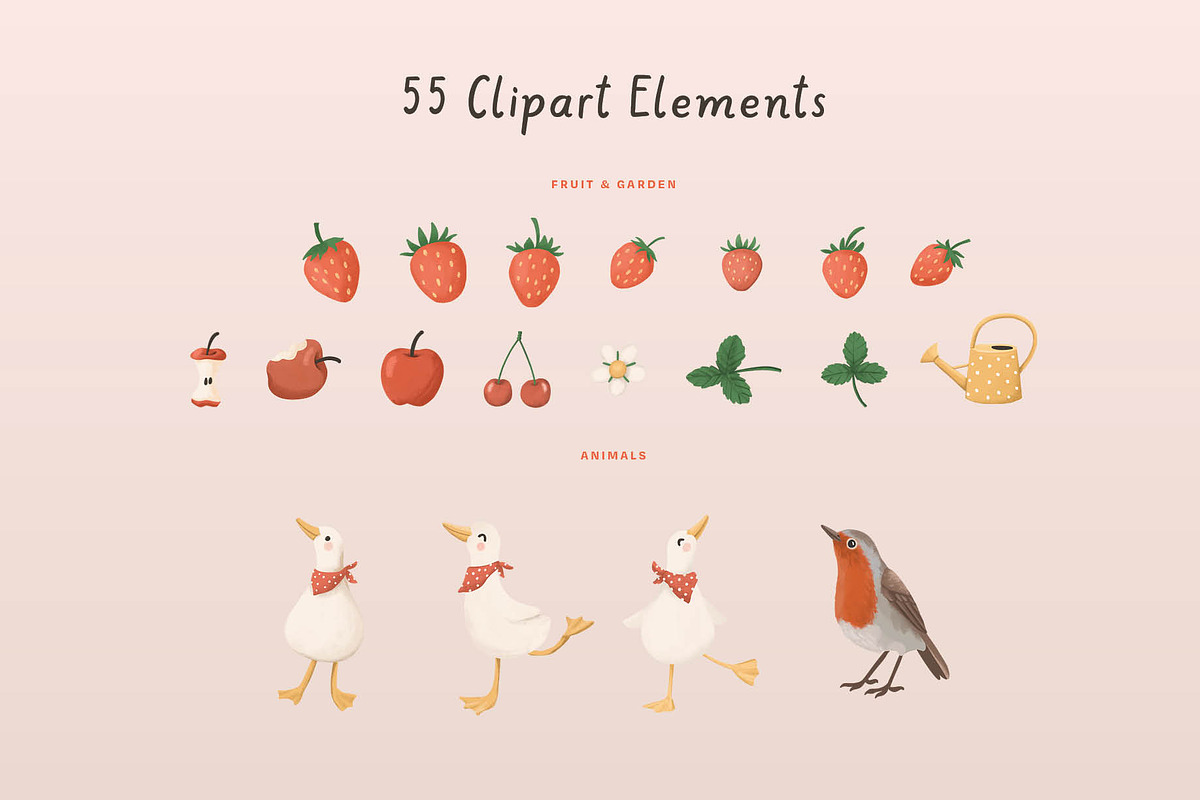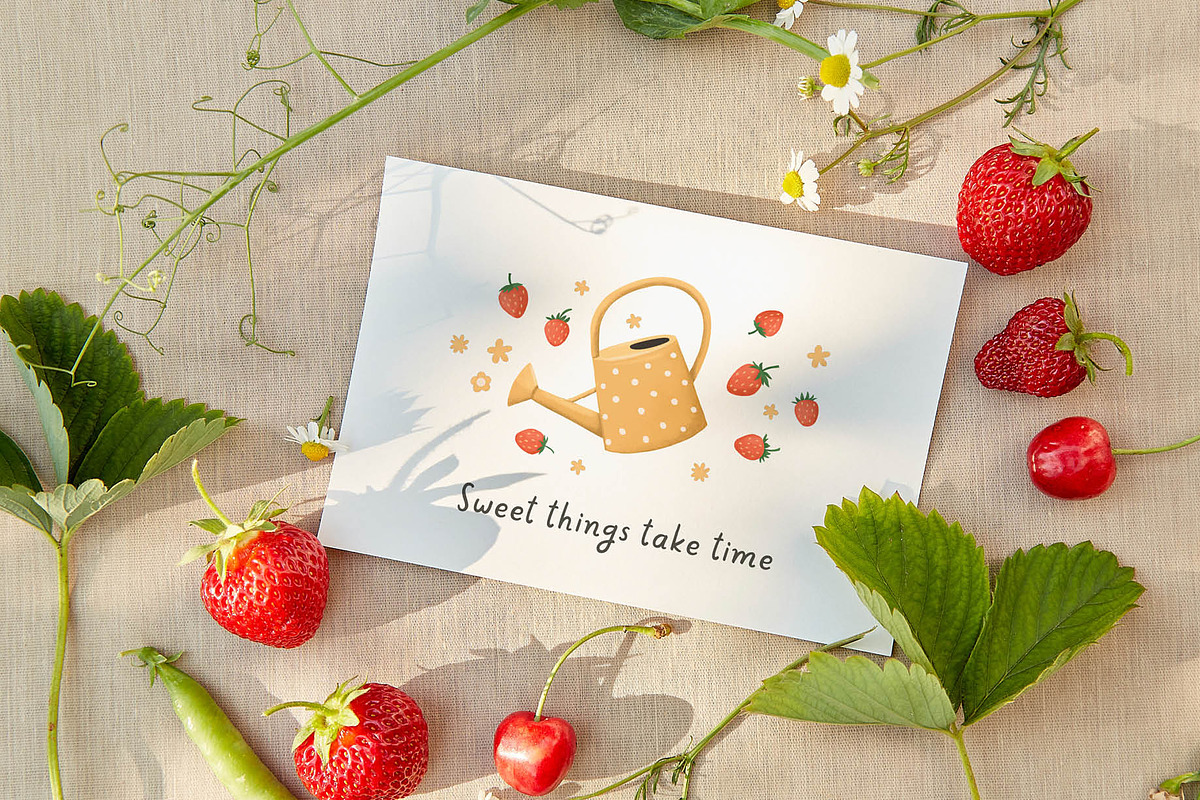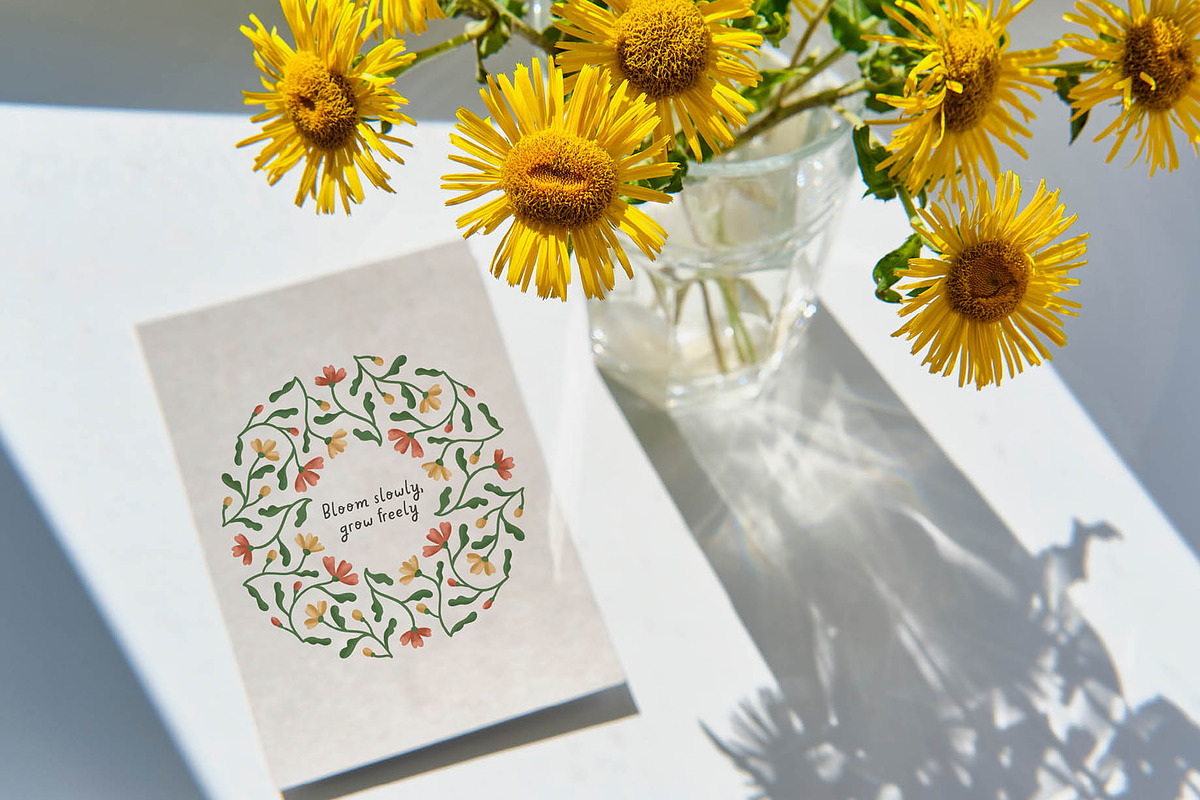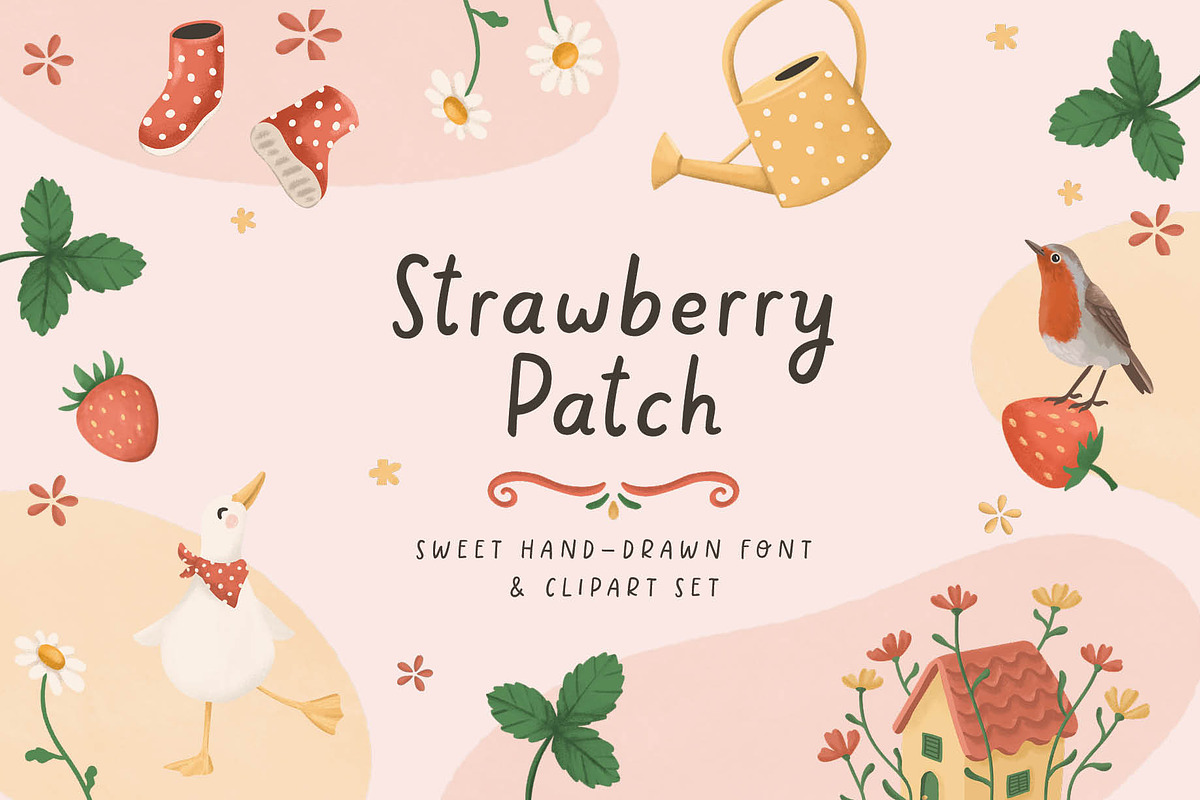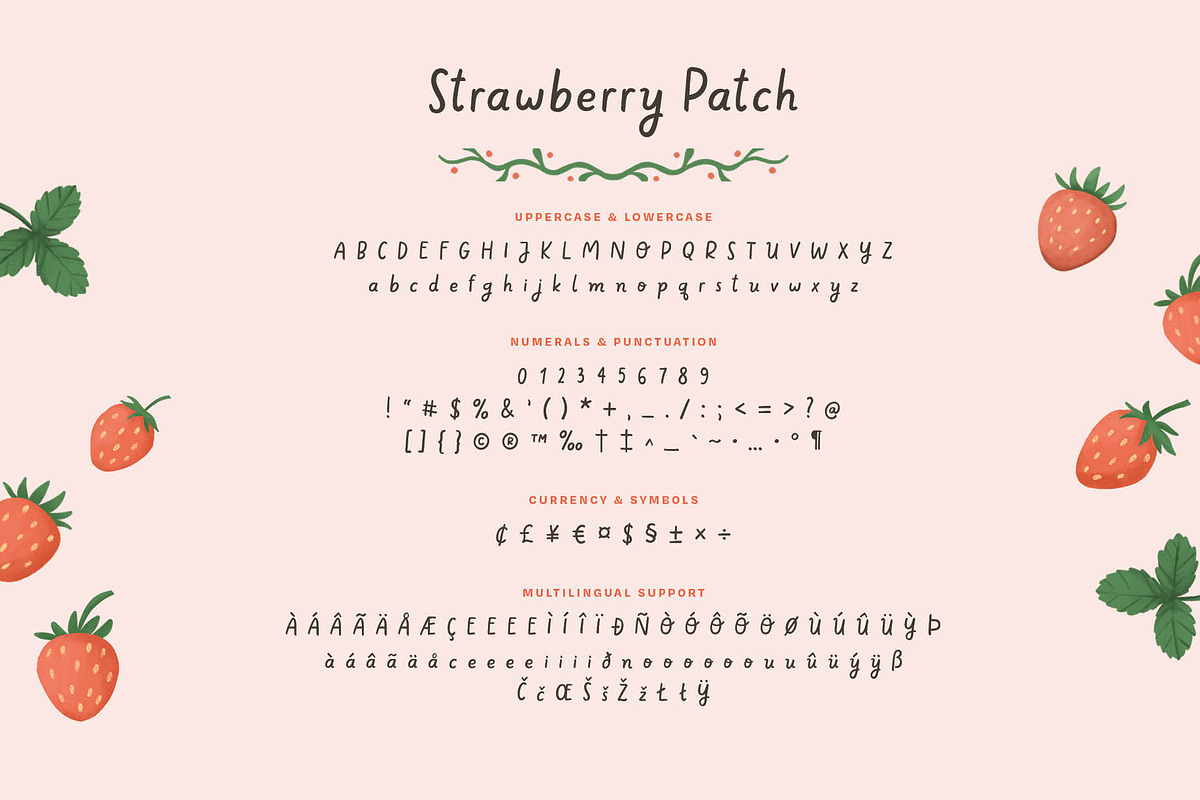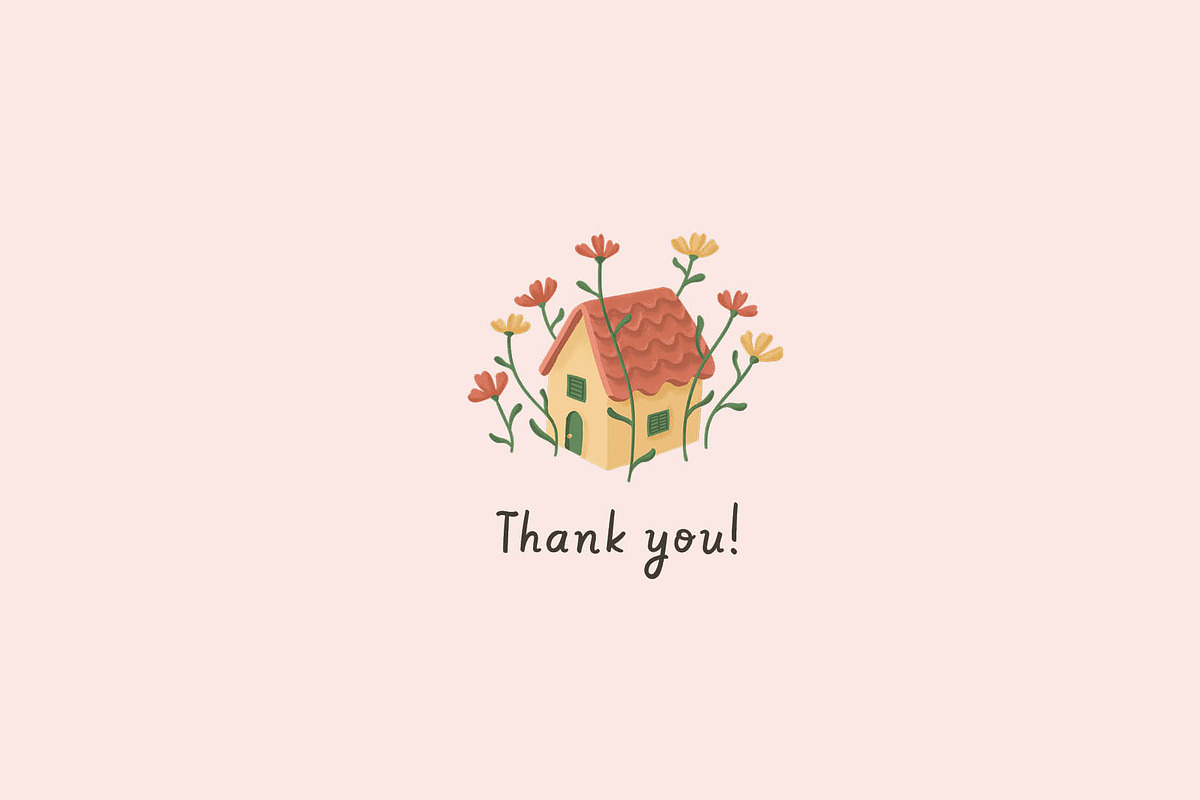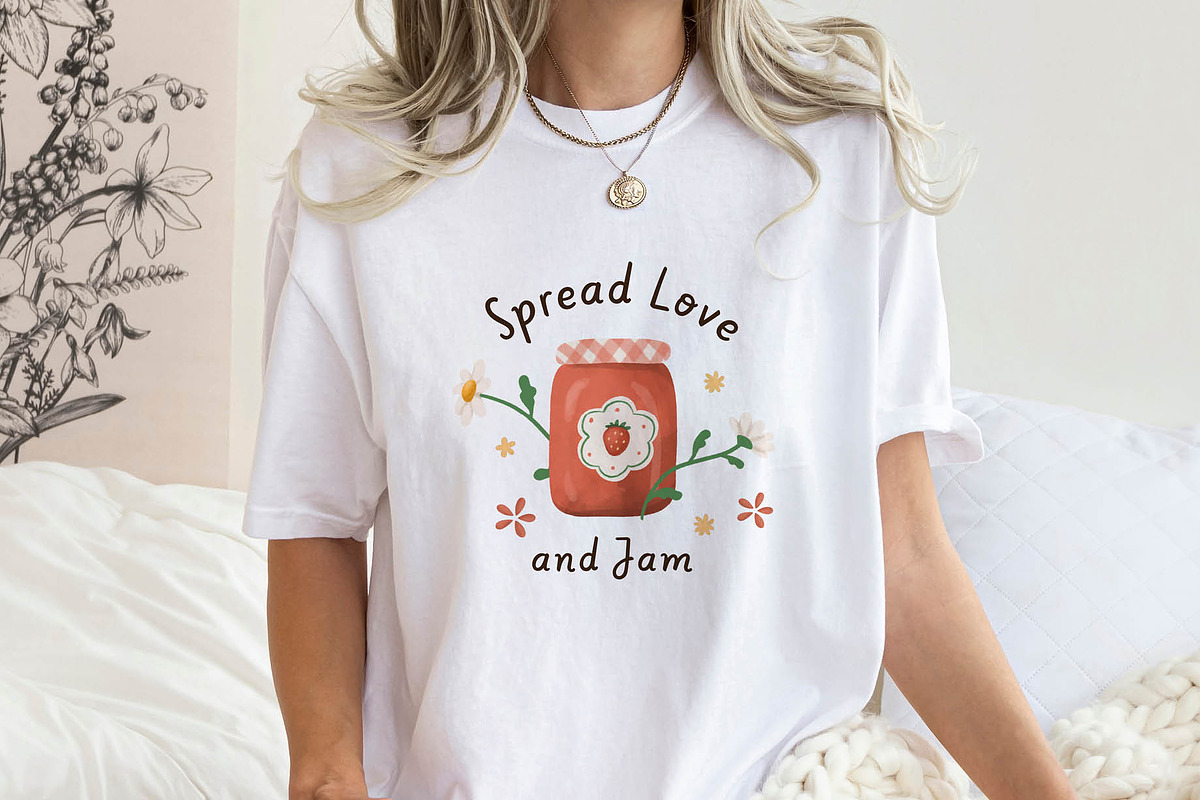
Strawberry Patch - Font & Clipart
Strawberry season had just begun when I started working on this set. The scent of warm strawberries, homemade jam, fresh flowers from the garden, and long afternoons under the sun inspired both the font and the illustrations.
Strawberry Patch is a hand-drawn font in OTF format, created to feel playful yet clear. It’s perfect for printables, packaging, journaling, t-shirts, or anywhere you want a soft, natural touch.
Along with the font, you’ll receive 56 high-resolution PNG illustrations with transparent backgrounds. Each one is painted in a soft style and ready to use in your creative projects. The collection includes a mix of fruit, flowers, cozy objects and little decorative touches.